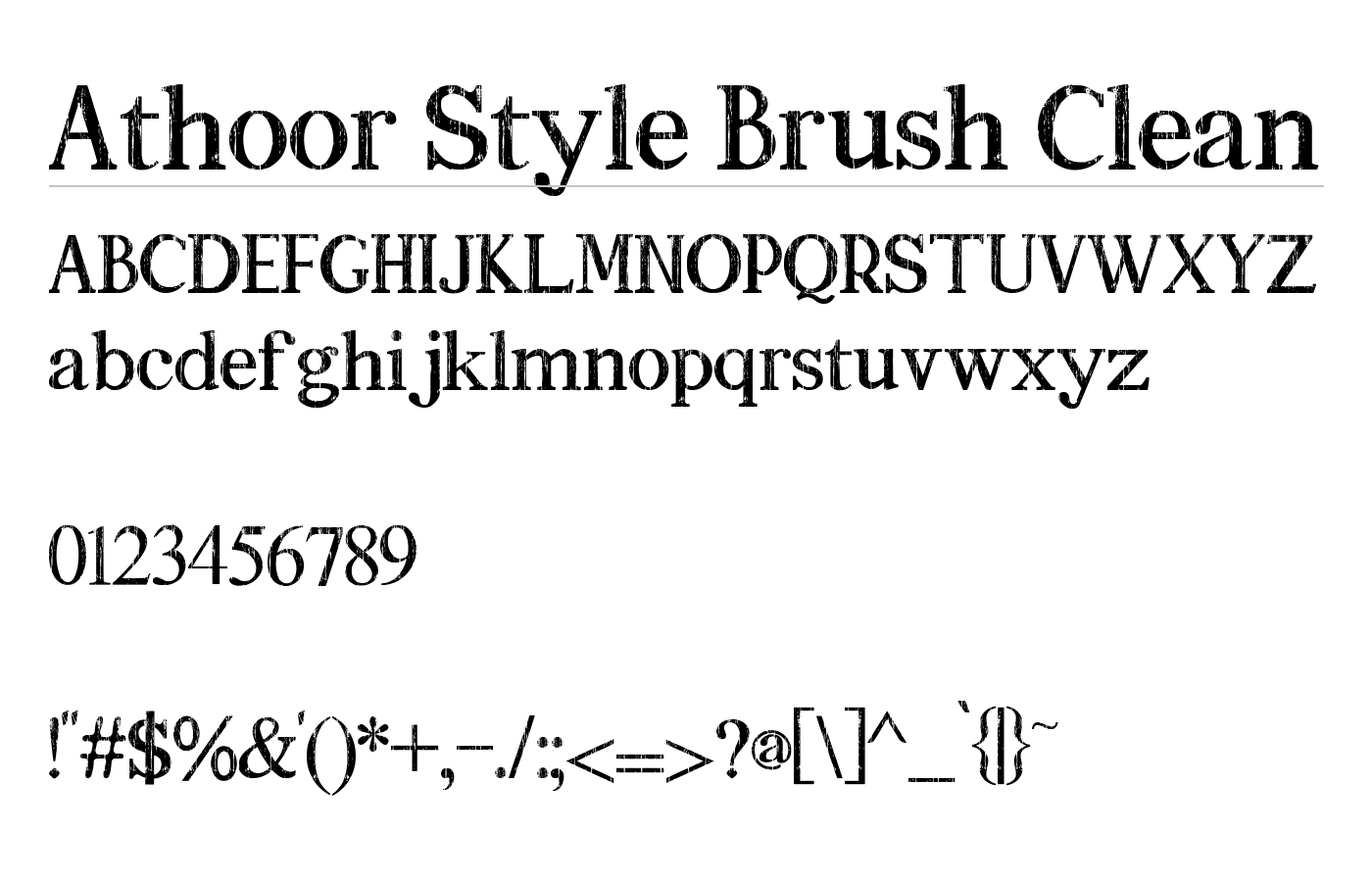
Athoor Style Brush Clean is a serif font with a vintage, textured look that combines classic elegance with a hand-brushed, distressed effect. Its medium weight and moderate contrast create a balanced, readable style that feels both traditional and artistic. This font works well for branding, posters, and editorial design where a touch of rustic charm and sophistication is desired.
Athoor Style Brush Clean Font
About Athoor Style Brush Clean Font
| Font family | Athoor Style Brush Clean Font |
| Designer | Amrullah |
| Trademark | Athoor Style Brush Clean created by Suamzu Art 2020 |